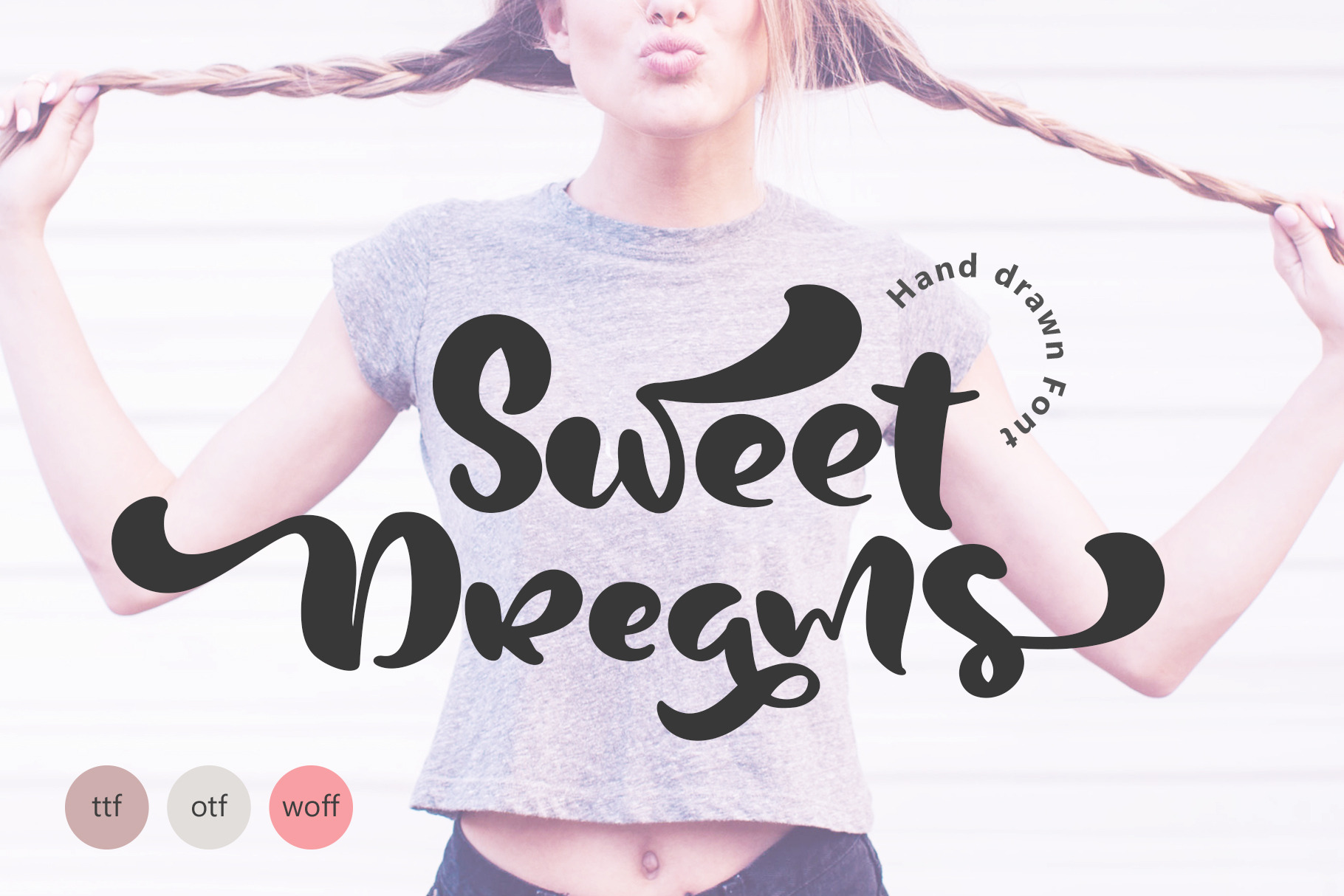
Sweet Dreams Script Font
Unique handmade calligraphic Sweet Dreams Script Font is modern display font with 81 alternative flourish lowercases, 51 alternative uppercases and 27 ligatures. Each time when you`ll type the text with Sweet Dreams Font, you will want to return to it again and again, because it sweet dreams for designers, blogers and everybody who loves handwritting calligraphy. For fans of puzzles and flowery flourish whorls, there will be plenty of opportunity to experiment on different versions of each letter. Help to you realize your dreams and design ;)
PERFECT FOR
Titles and text for wedding albums, logo, hand drawn phrases or quotes for greeting cards (Christmas, Valentine`s Day, Mother`s Day, Easter, Birthday and other holidays), calligraphy photo overlay, short phrases, gift shops tag, presentation in social media Pinterest or Instagram.